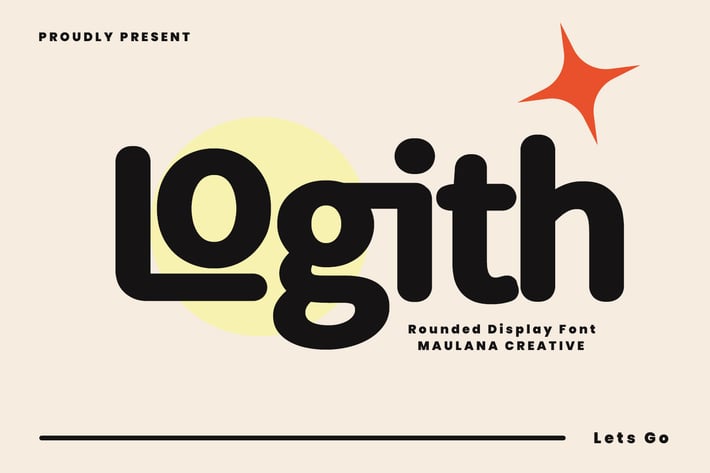
Logith Rounded Sans Serif Display Font
Logith is a rounded sans serif display font. Awesome character with a ligatures and alternate. To give you an extra creative work. Logith font support multilingual language. This font is good for logo design, Social media, Movie Titles, Books Titles, a short text even a long text letter and good for your secondary text font with sans or serif. Make a stunning work with Logith font.